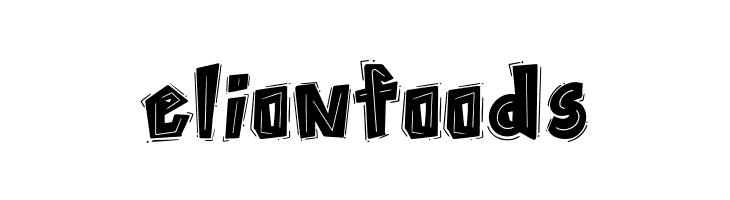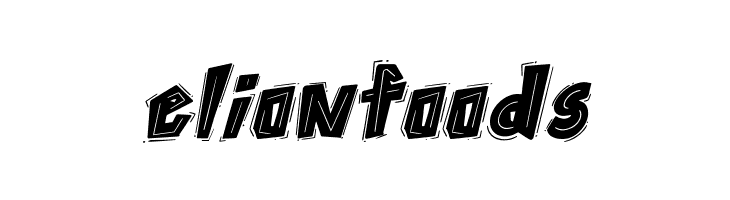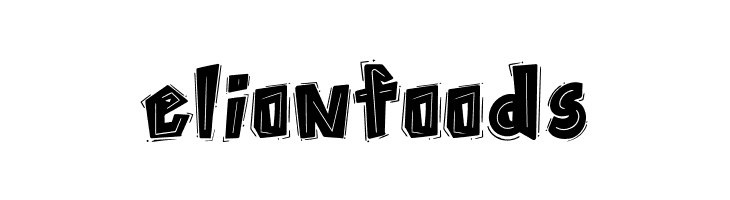
A bold, brush script font with a textured, artistic style.
A bold, angular font with a futuristic and geometric design.
A bold, playful font with jagged, hand-drawn edges and a cartoonish style.
A bold, decorative font with vintage and gothic influences, featuring intricate details.
A bold, ornate font with vintage and gothic influences, ideal for impactful designs.
A bold, distressed font with jagged edges and a grunge aesthetic.
A lively, handwritten font with bold, fluid strokes.
A bold, decorative font with intricate, tribal-inspired designs.
A decorative Gothic-style font with intricate, angular strokes and ornate details.
A bold, distressed font with a rugged, vintage aesthetic.
A playful and artistic font with eclectic curves and bold strokes.
A geometric and angular font with a futuristic and edgy design.
A whimsical, decorative serif font with playful curls and loops.
A bold, decorative font with elegant swirls and curves.
A bold, decorative font with a dynamic wave pattern throughout each character.
A bold, brush-style font with dynamic, hand-painted strokes.
A modern, rounded sans-serif font with uniform line thickness and clean design.
A playful and elegant script font with a modern twist.
A bold, angular font with a medieval and fantasy-inspired design.
A dynamic and elegant script font with flowing, interconnected characters.
A geometric, futuristic font with bold, circular elements and strong visual impact.
A futuristic, geometric font with bold, circular strokes and a modern aesthetic.
A bold, distressed font with a grunge effect, perfect for impactful designs.
A distressed, grungy font with bold, irregular strokes and a hand-drawn feel.
A bold, playful font with a hand-drawn, energetic style.
A bold, playful, hand-drawn font with a cartoonish style.
A bold, italic font with angular strokes and a dynamic, modern style.
A bold, italic font with a dynamic, shadowed style.
A fluid, cursive font with elegant, connected characters and a delicate appearance.